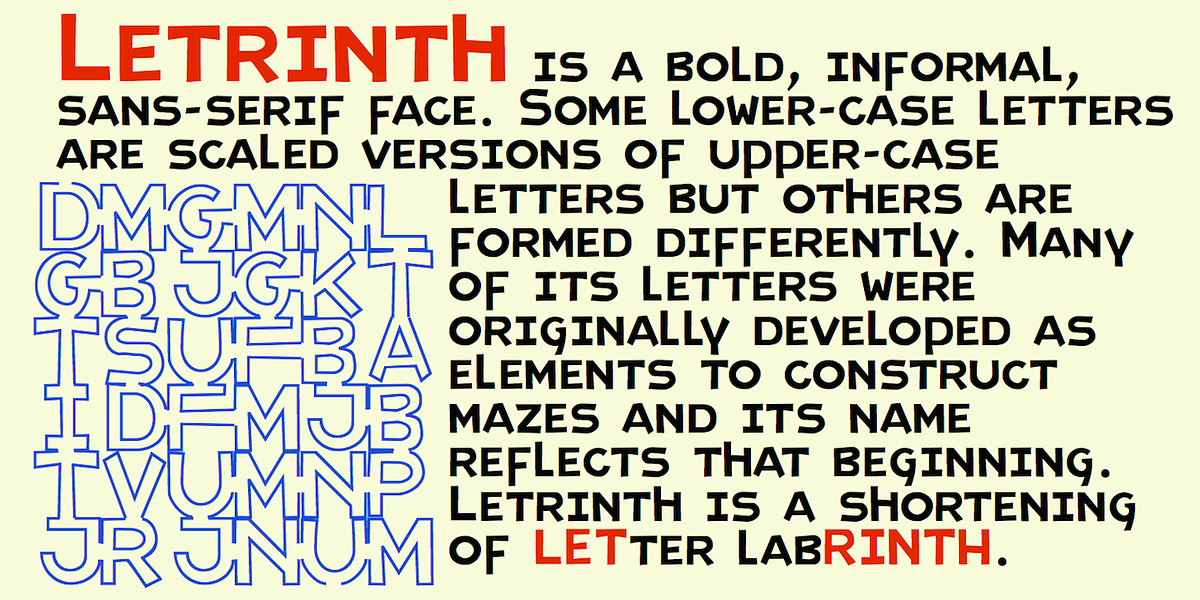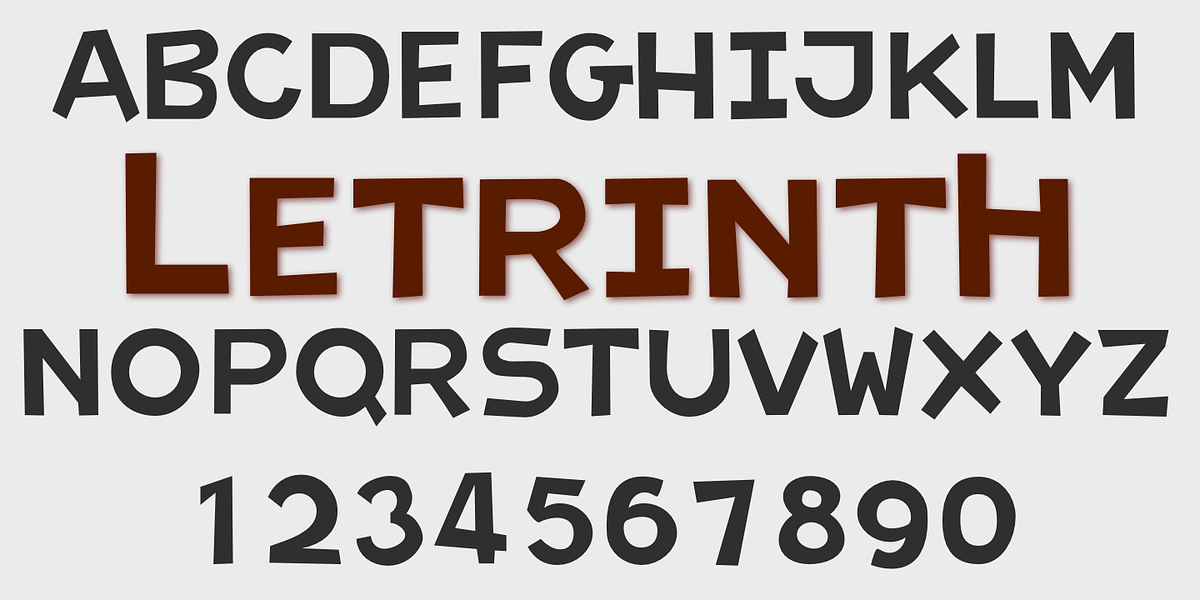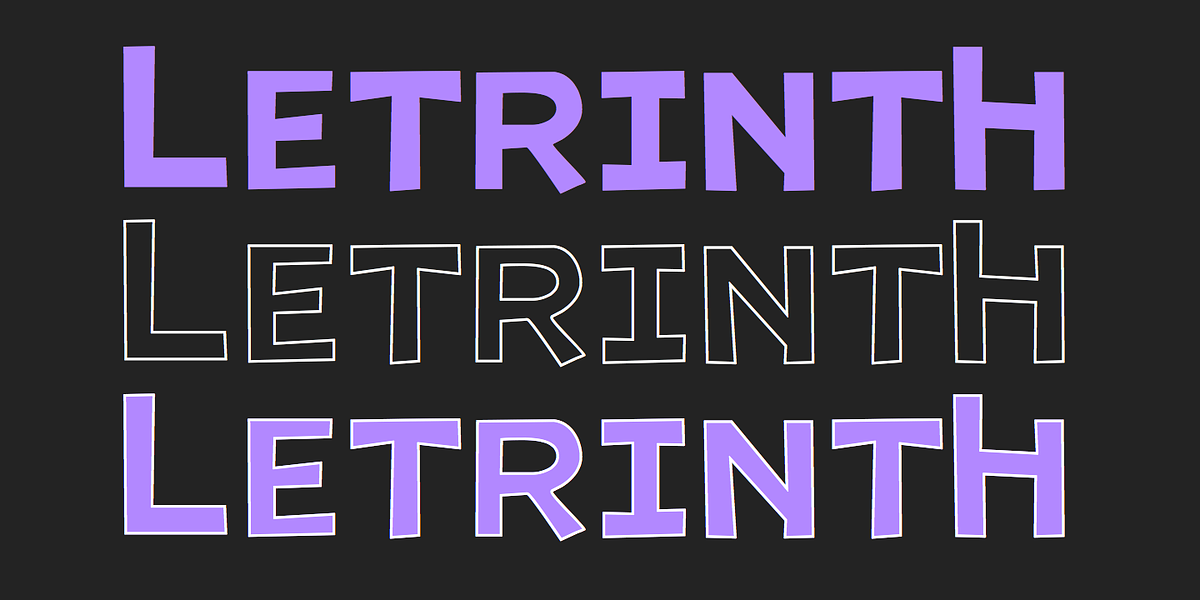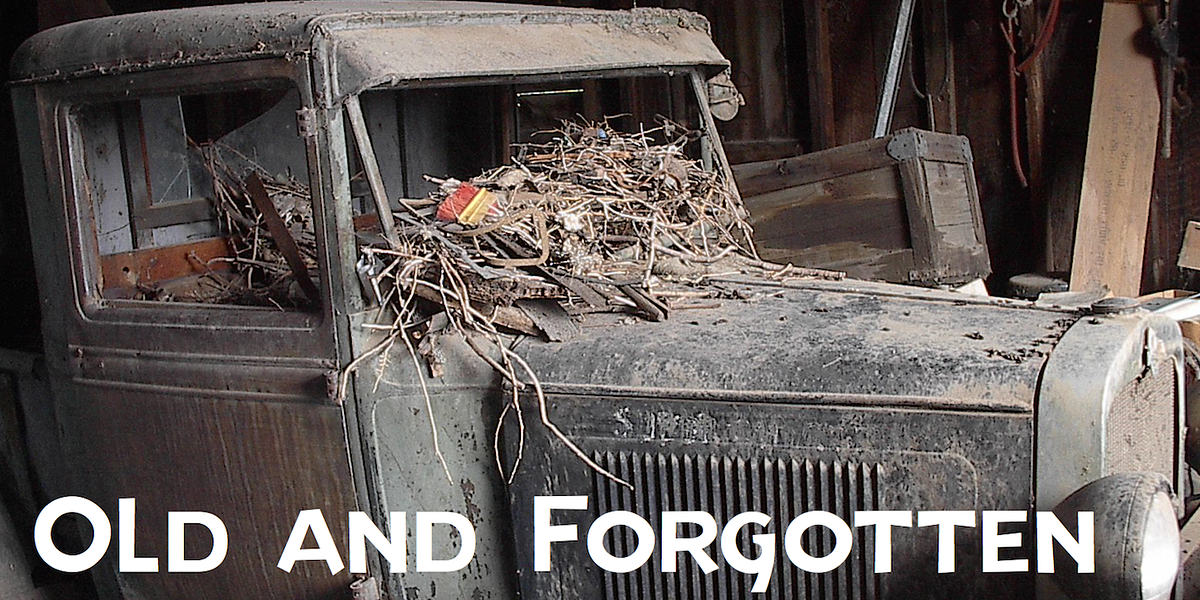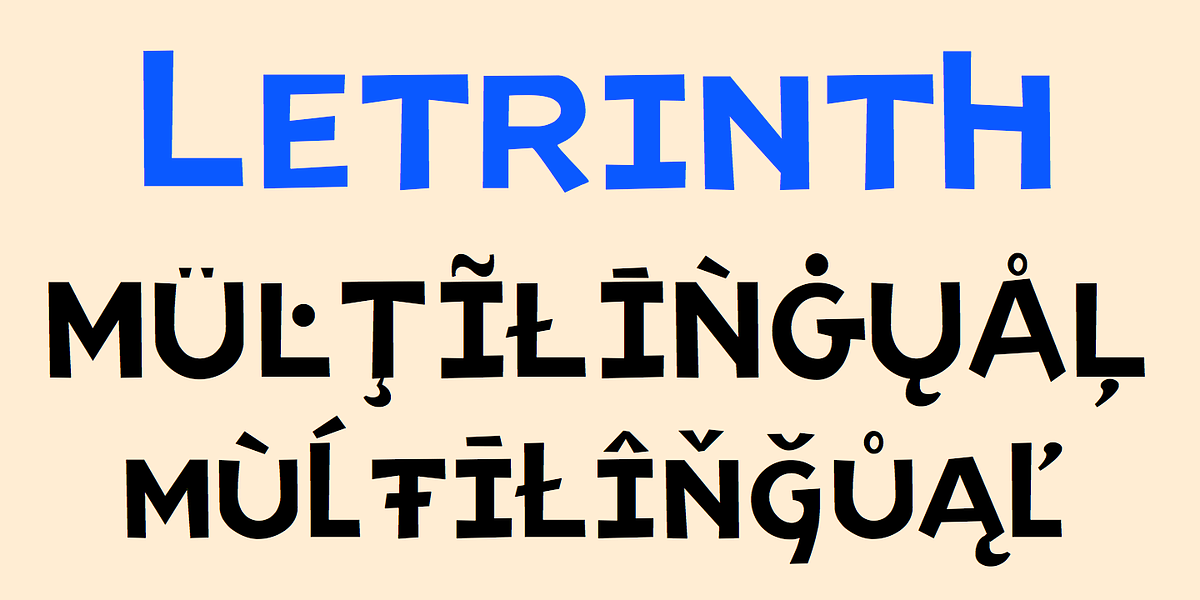
Letrinth
Letrinth is a bold, geometric sans-serif typeface characterized by its unique lowercase letterforms. Some lowercase letters are scaled versions of their uppercase counterparts, reflecting the font's origin as a special alphabet used to design a maze. Its boldness and informal nature make it suitable for display purposes like headlines and branding.